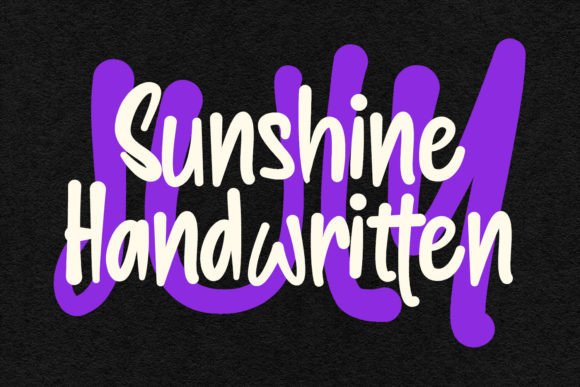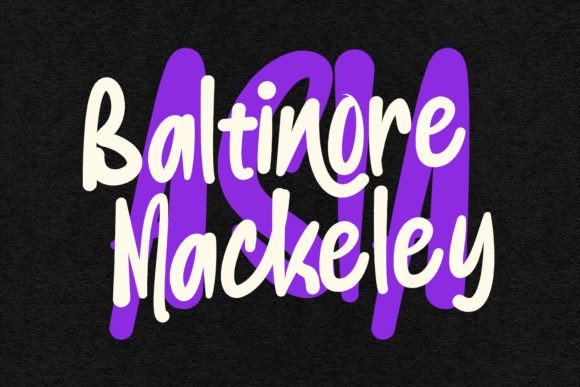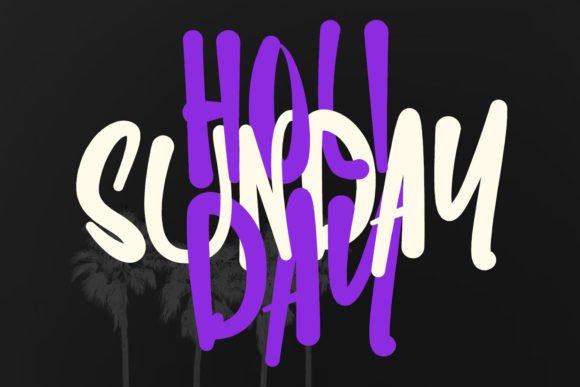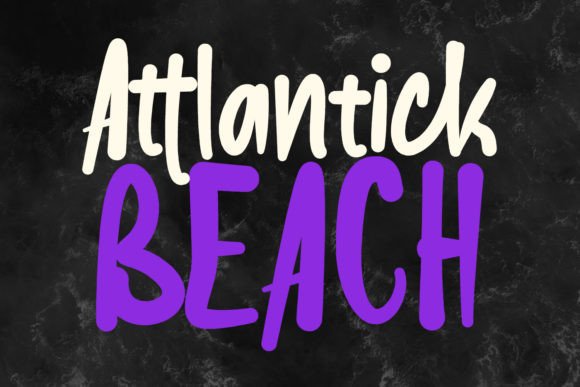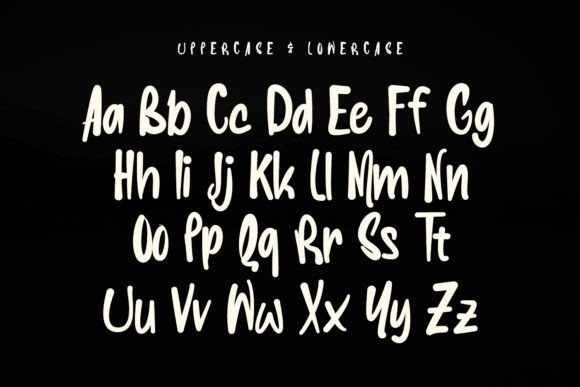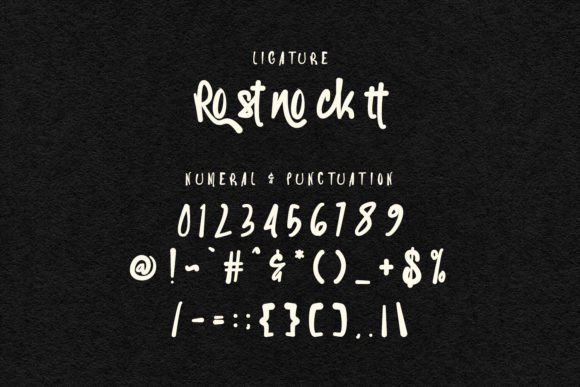
Introducing Feuto Font: The Perfect Handwritten Touch for Your Creative Projects
In the world of digital design, fonts play a crucial role in conveying the tone and personality of a project. If you’re looking for a font that adds a personal touch to your creations, look no further than Feuto Font. This fun and friendly font is designed to mimic the look of handwritten text, making it perfect for a wide range of applications, from greeting cards and posters to social media posts and more.
The Characteristics of Feuto Font
So, what makes Feuto Font so special? For starters, its smooth and flowing letterforms give it a warm and inviting feel that’s hard to resist. The font’s hand-written appearance adds a touch of personality to any text, making it perfect for designers and crafters who want to add a bit of whimsy to their work.
Feuto Font is also incredibly easy to read, making it a great choice for longer blocks of text. The font’s clear and legible letterforms ensure that your message gets across clearly, without sacrificing style for substance.
One of the best things about Feuto Font is its versatility. Whether you’re working on a greeting card, poster, social media post, or any other type of project, this font is sure to fit the bill. Its friendly and approachable vibe makes it perfect for a wide range of applications, from formal and informal to playful and creative.
For designers, Feuto Font is a great choice for projects that require a bit of personality and flair. Use it to add a touch of whimsy to a client’s branding, or to create eye-catching headlines and titles that really pop.
For crafters, Feuto Font is a dream come true. Use it to create beautiful handmade cards and invitations, or to add a personal touch to your journaling and scrapbooking projects.
Why Choose Feuto Font?
So, why should you choose Feuto Font for your next project? Here are just a few reasons why this font stands out from the crowd:
- Unique and eye-catching: Feuto Font has a distinctive look that’s sure to grab attention and set your project apart from the rest.
- Easy to read: Despite its hand-written appearance, Feuto Font is incredibly easy to read, making it perfect for longer blocks of text.
- Versatile: Feuto Font can be used for a wide range of projects, from formal and informal to playful and creative.
- Personal touch: Feuto Font adds a personal touch to any project, making it perfect for designers and crafters who want to add a bit of personality to their work.
Tips for Using Feuto Font
Now that you know a bit more about Feuto Font, here are a few tips for using it in your projects:
- Experiment with different sizes: Feuto Font looks great in a variety of sizes, from small and delicate to large and bold.
- Play with colors: Feuto Font is a great choice for projects that require a bit of color and personality. Try pairing it with bright and bold hues for a really eye-catching effect.
- Mix and match: Don’t be afraid to mix and match Feuto Font with other fonts and design elements to create a really unique look.
In conclusion, Feuto Font is a fun and friendly font that’s perfect for adding a personal touch to your creative projects. With its smooth and flowing letterforms, easy readability, and versatile design, it’s a great choice for designers and crafters alike. Whether you’re working on a greeting card, poster, social media post, or any other type of project, Feuto Font is sure to bring a bit of whimsy and personality to your work.